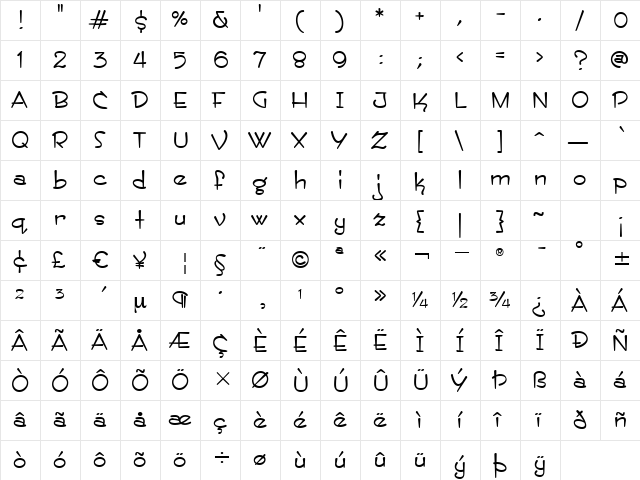
StyleboyITC TT Regular
| Foundry | International Typeface Corporation |
| Designer | Chester Wajda |
Design Context for StyleboyITC TT Typeface
StyleboyITC TT is a composed and adaptable typeface that performs quietly and consistently across a wide range of design contexts.